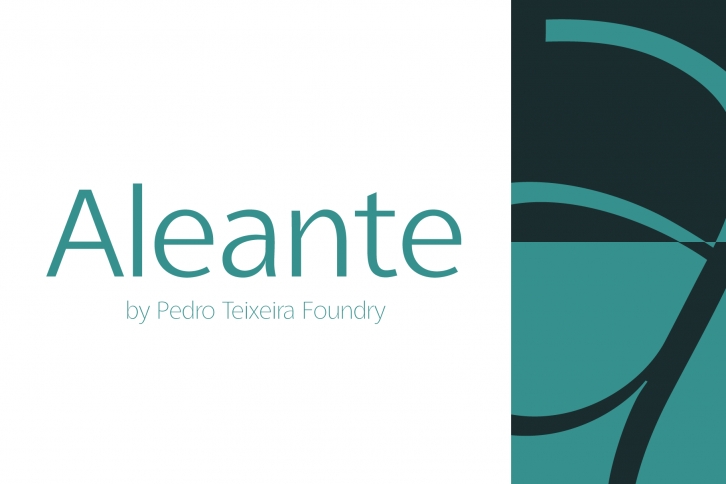
Aleante Sans Light is a beautiful font that was designed by Pedro Alexandre Teixeira. It's a great choice for designers and creatives who need such a font. It was released on September 15, 2019 and the file size is 14.49 MB. Aleante Sans Light may give a more youthful, expressive and casual look to your project. It is a very beautiful, refined, elegant, and high-quality font.